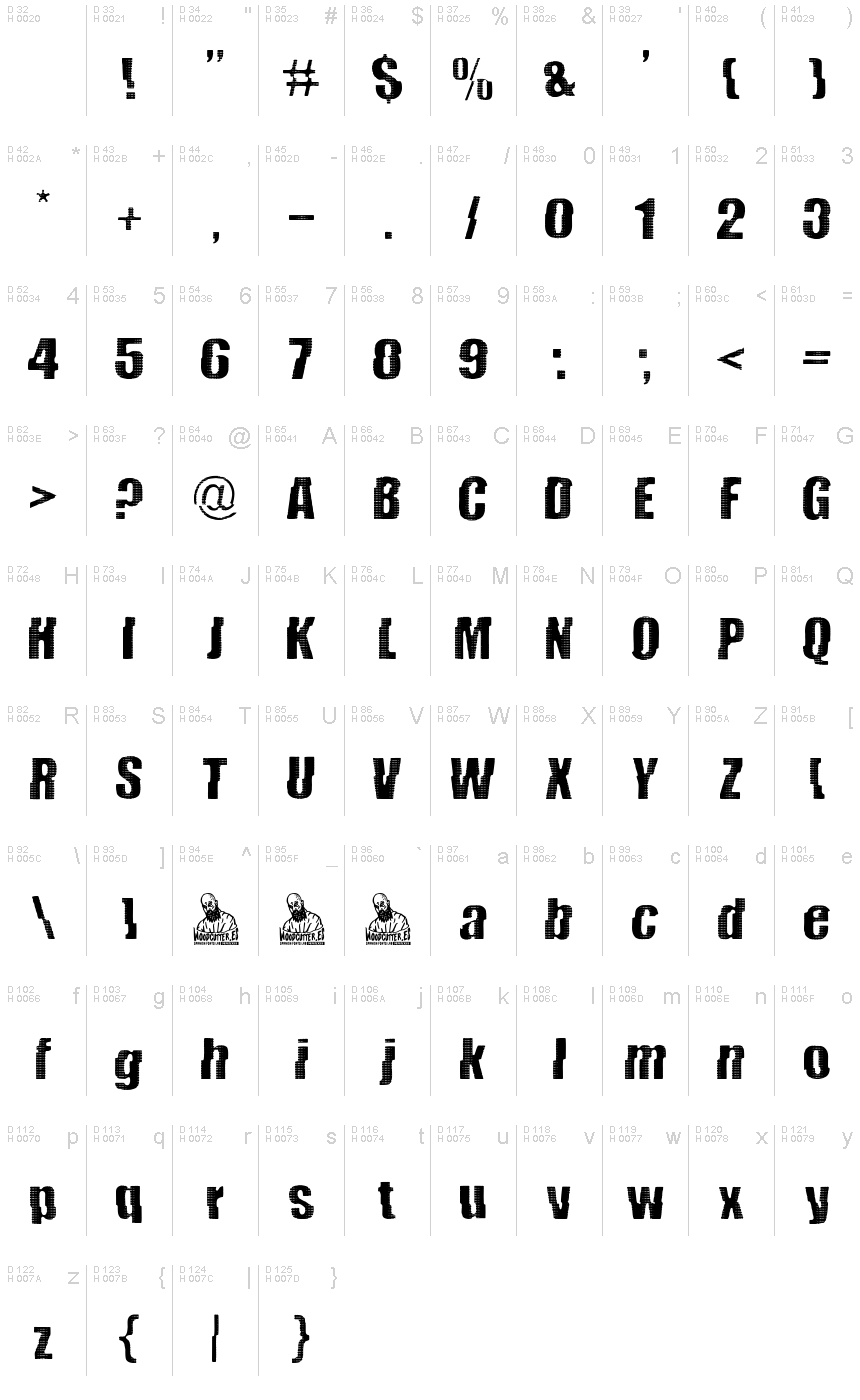
Garbage And Death Attic
Garbage And Death Attic, a captivating display font crafted by Woodcutter, exudes an unsettling, distorted elegance. This condensed typeface boasts a unique aesthetic, blending the ominous and the alluring. Its letterforms, with their sharp edges and fragmented lines, evoke a sense of decay and abandonment, inviting the viewer to delve into the shadows of the macabre. This font's compelling visual presence resonates with those seeking to convey a sense of unease, melancholy, or the darker aspects of the human experience.
Garbage And Death Attic's versatility allows it to shine in a variety of design contexts, from editorial layouts and book covers to album art and atmospheric branding. Its distinct personality lends itself well to projects exploring themes of horror, gothic undertones, or the exploration of the human condition. Designers seeking to create a striking, memorable impression will find Garbage And Death Attic a captivating addition to their typographic toolkit.